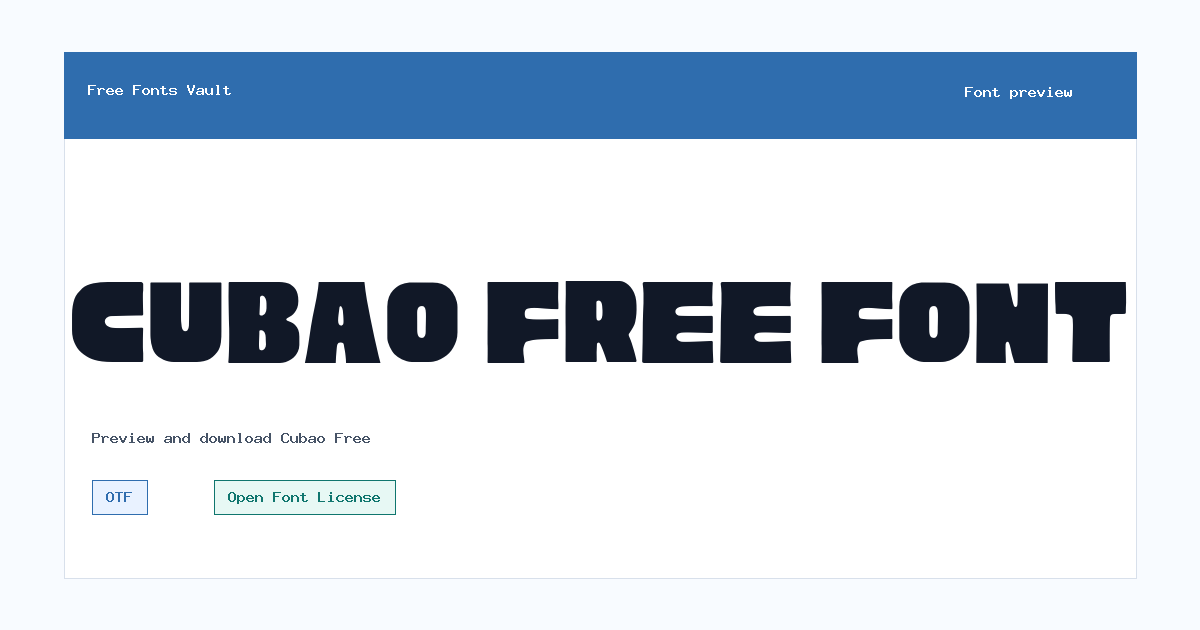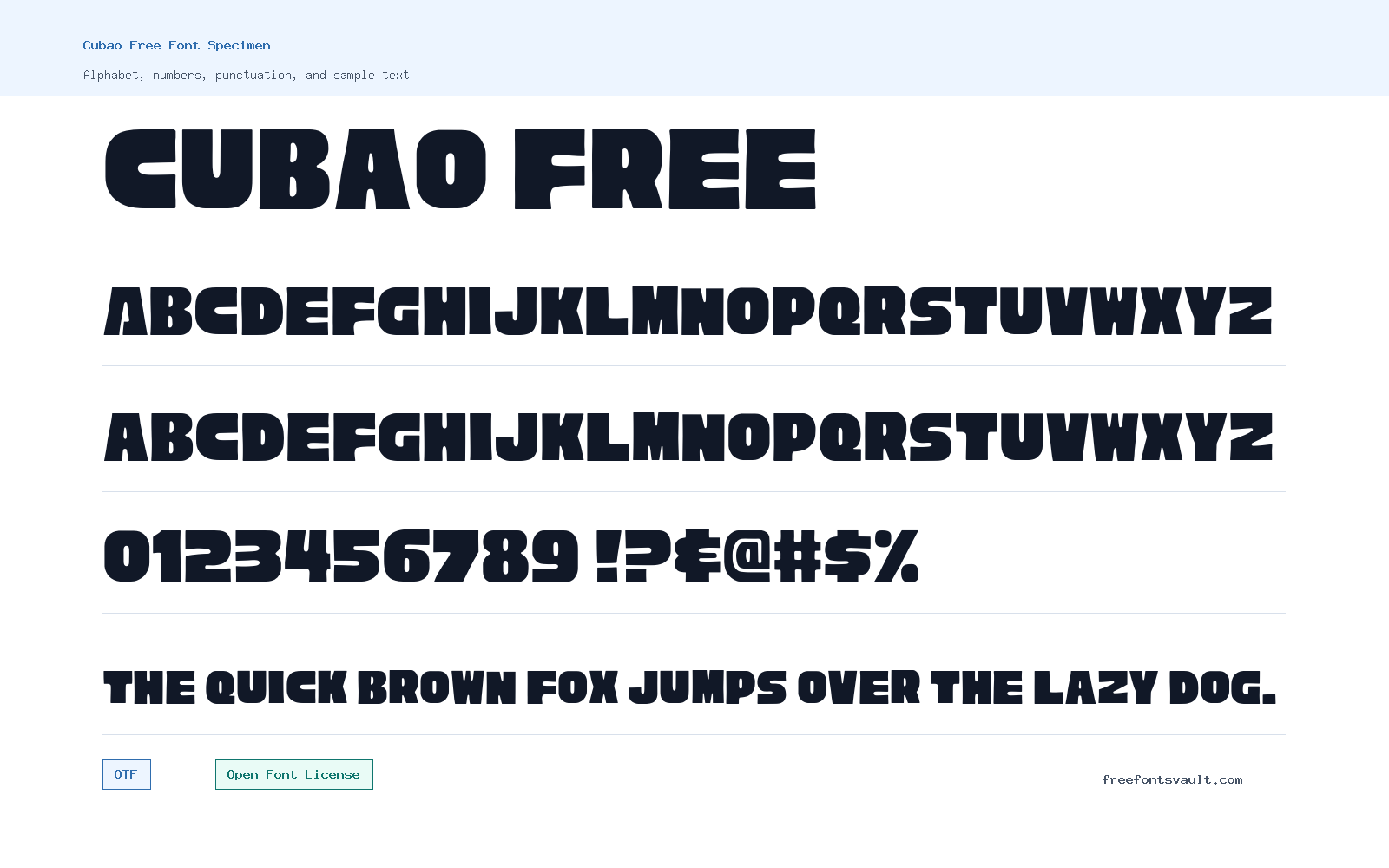
Cubao Free
- Designer Aaron Amar
Cubao Free is a display font suited to short, attention-focused text where the lettering needs more character than a plain sans serif.
About Cubao Free
Cubao Free works best when it is treated as a headline or accent face rather than a long-reading text font. Use it for names, titles, labels, posters, social graphics, packaging mockups, and other places where a few words need to stand apart. Since the download contains a regular OTF style, it is simple to test in most design apps and desktop font managers.
For the best result, try Cubao Free in the preview box with the exact words you plan to use. Check uppercase and lowercase combinations, spacing between tight letter pairs, and how the font behaves at smaller sizes. If the design feels too strong for body copy, pair it with a quiet sans serif or serif for supporting text so the layout stays easy to read.
- Display-friendly style for short titles, labels, and graphic text
- Designed by Aaron Amar
- Posters and event graphics
- Logo drafts and wordmark experiments
- Social media titles
- Packaging or label mockups
- Website hero headings
- Short branding text
Cubao Free is credited to Aaron Amar, with a designer link listed as http://be.net/aaronamar.
Who designed Cubao Free?
Cubao Free is credited to Aaron Amar.
Is Cubao Free good for body text?
It is better suited to short display text. Test it carefully before using it for paragraphs, especially at small sizes.